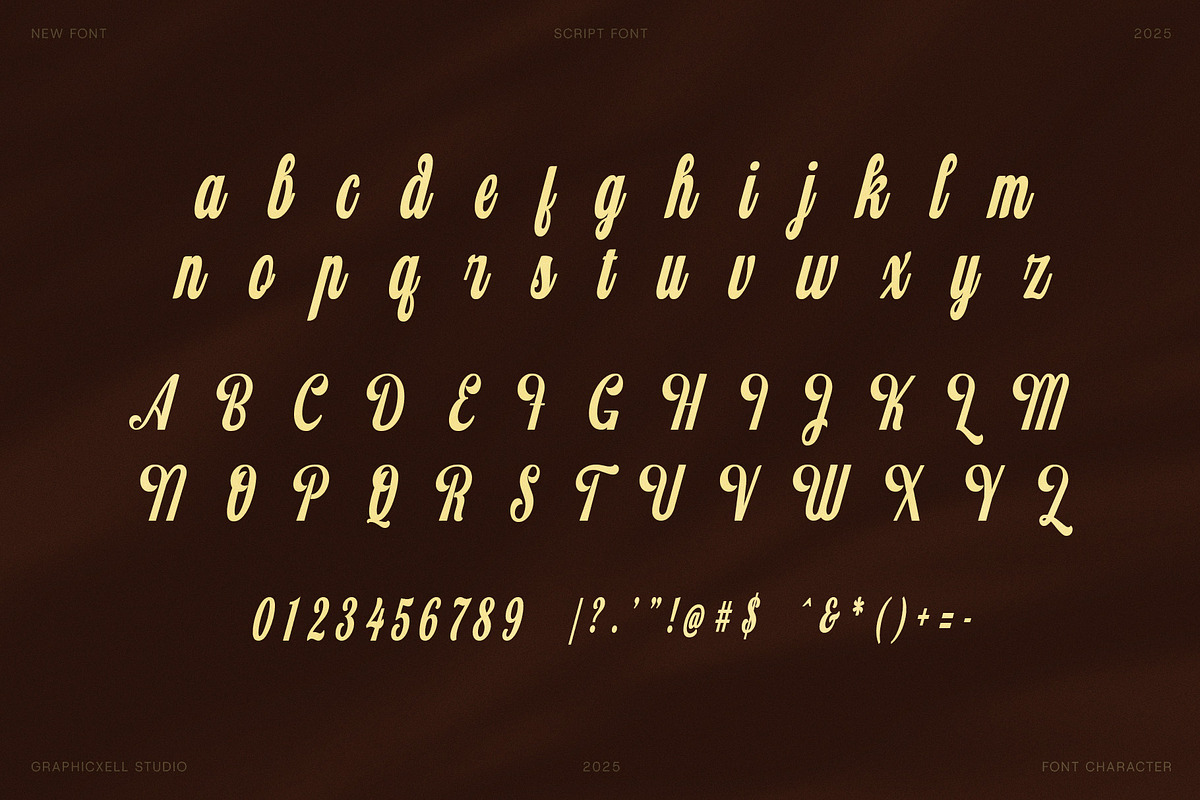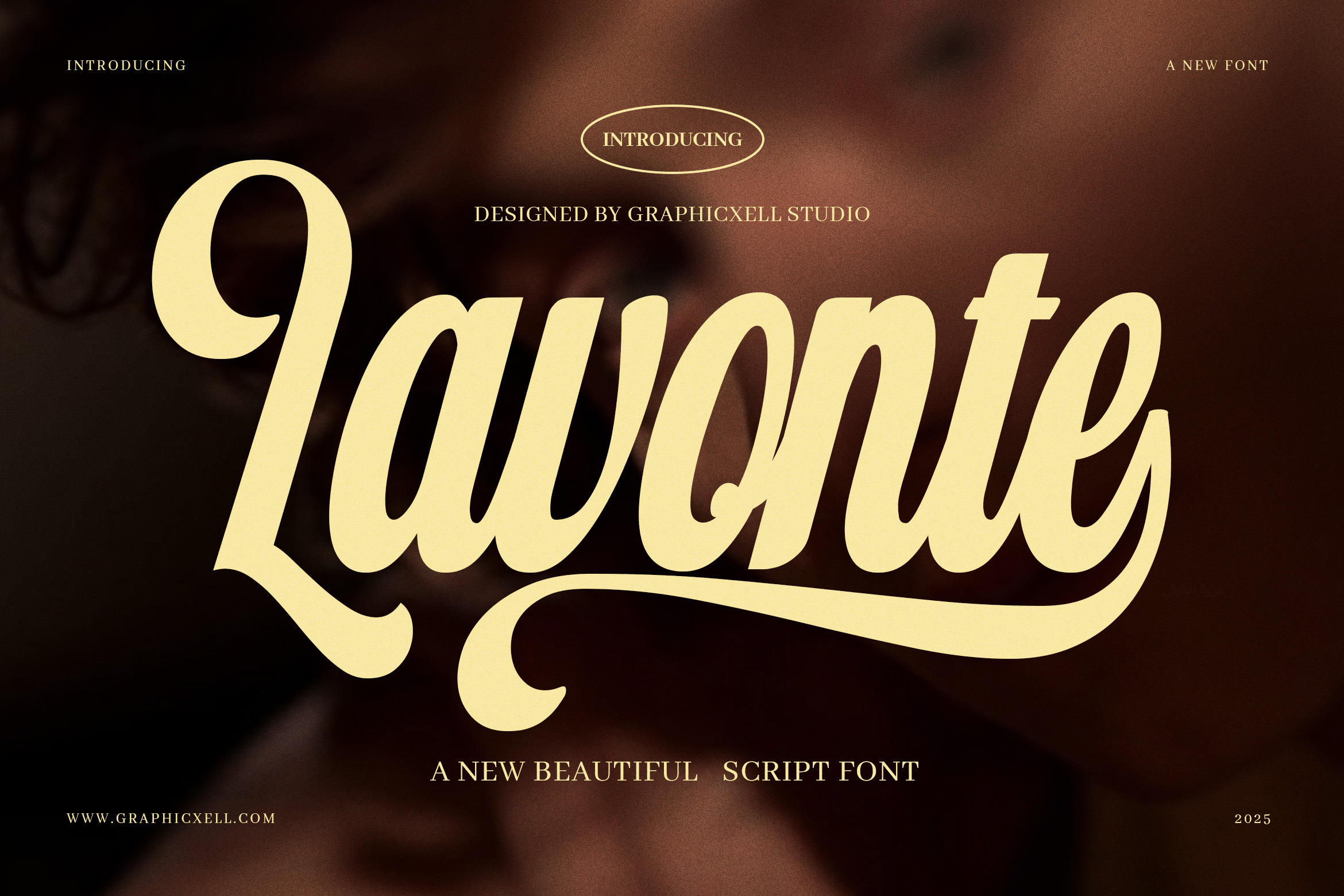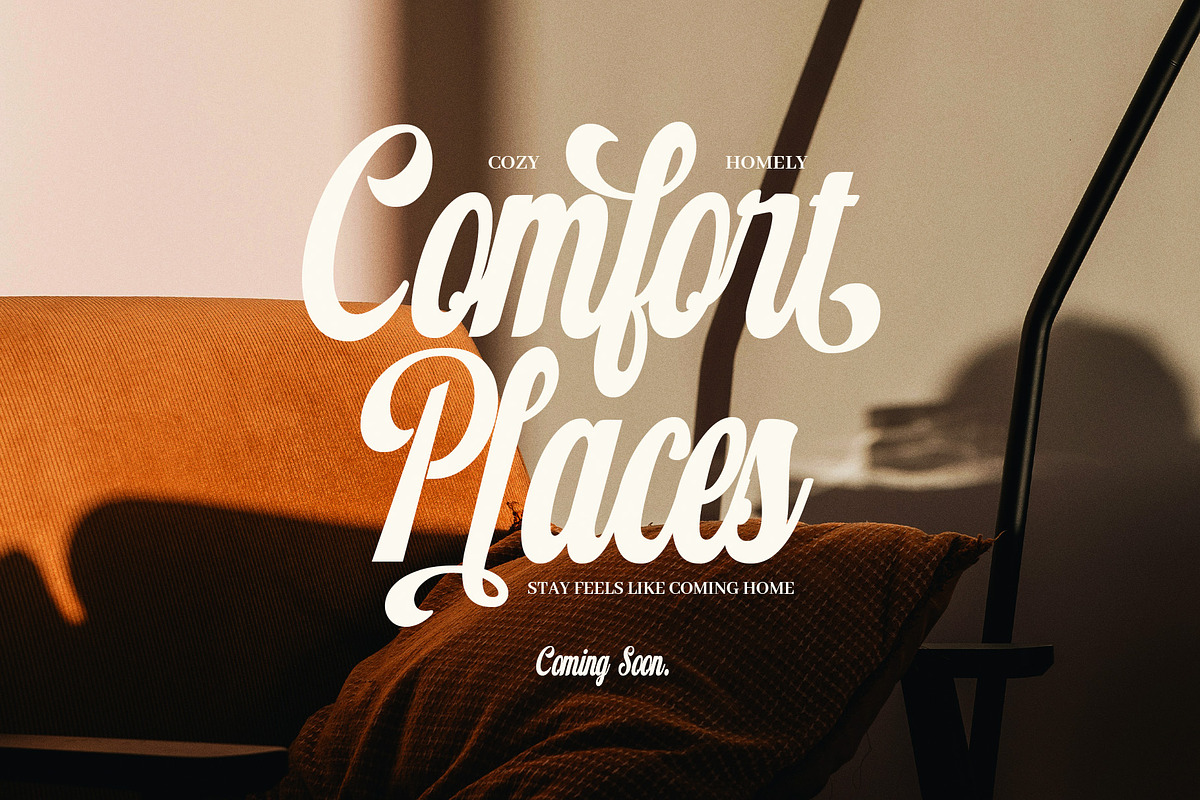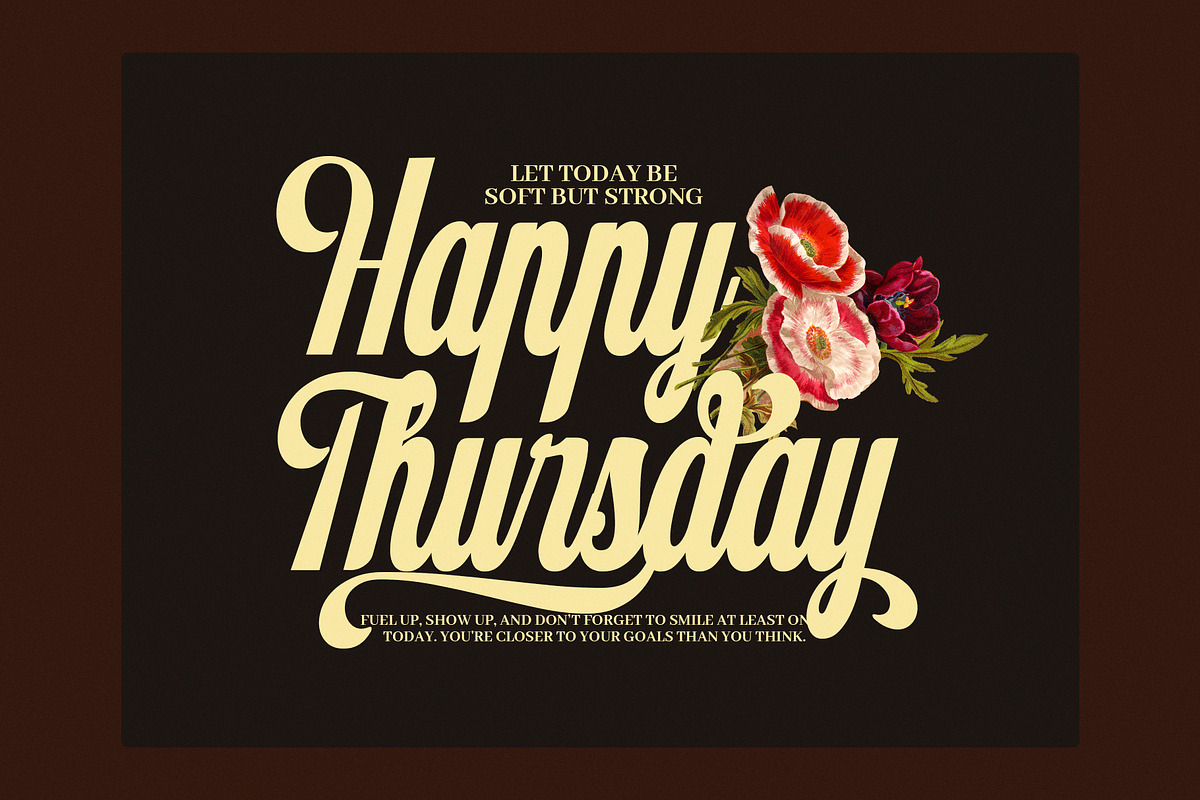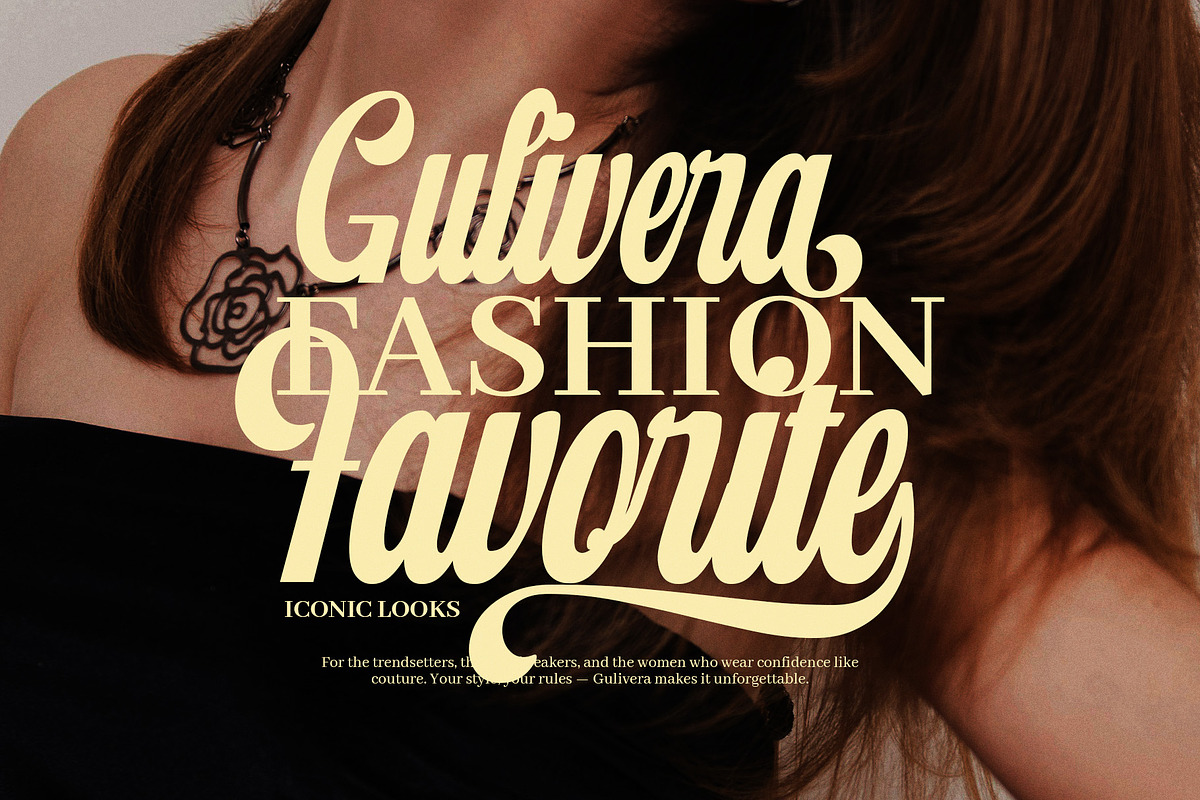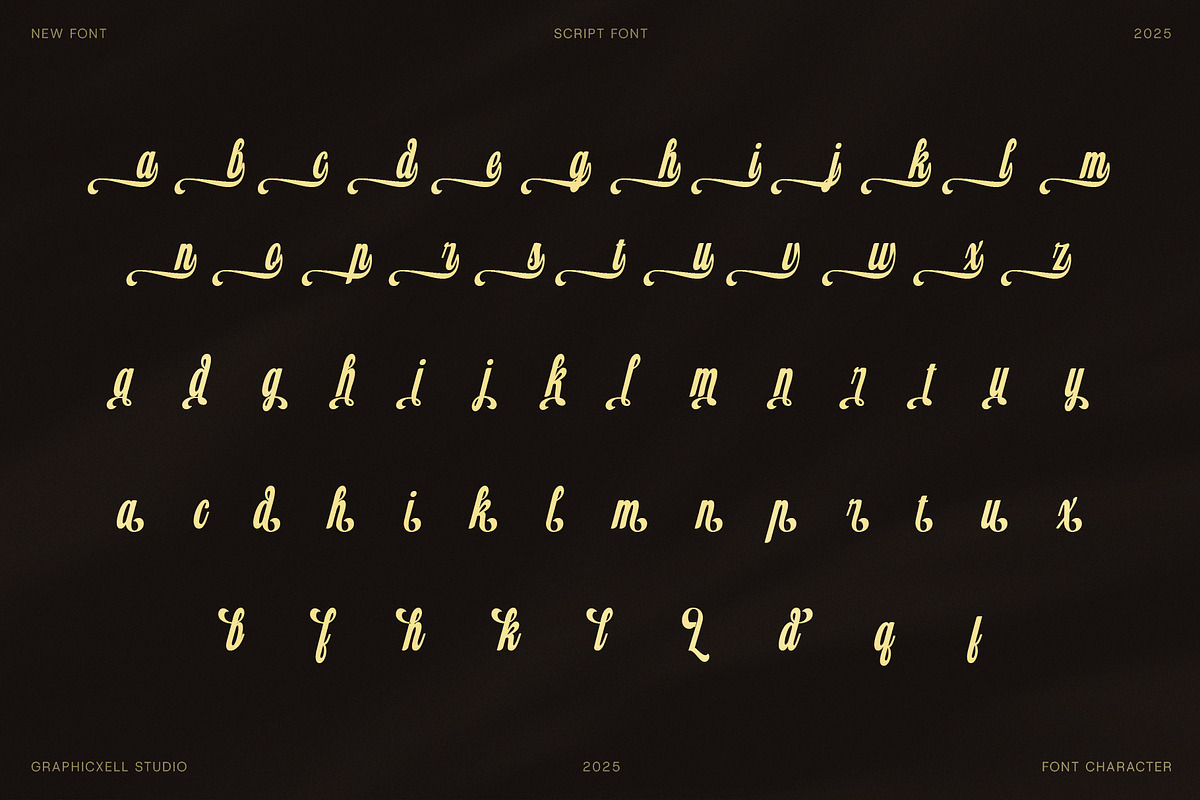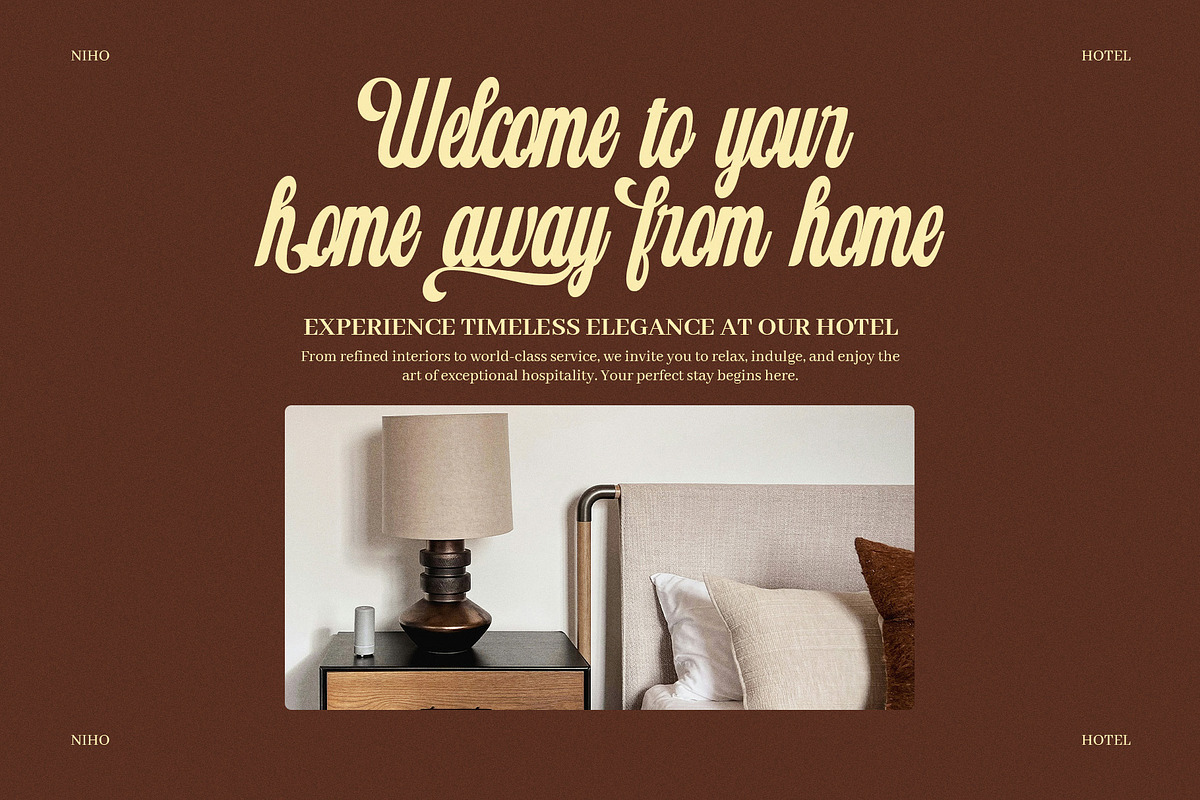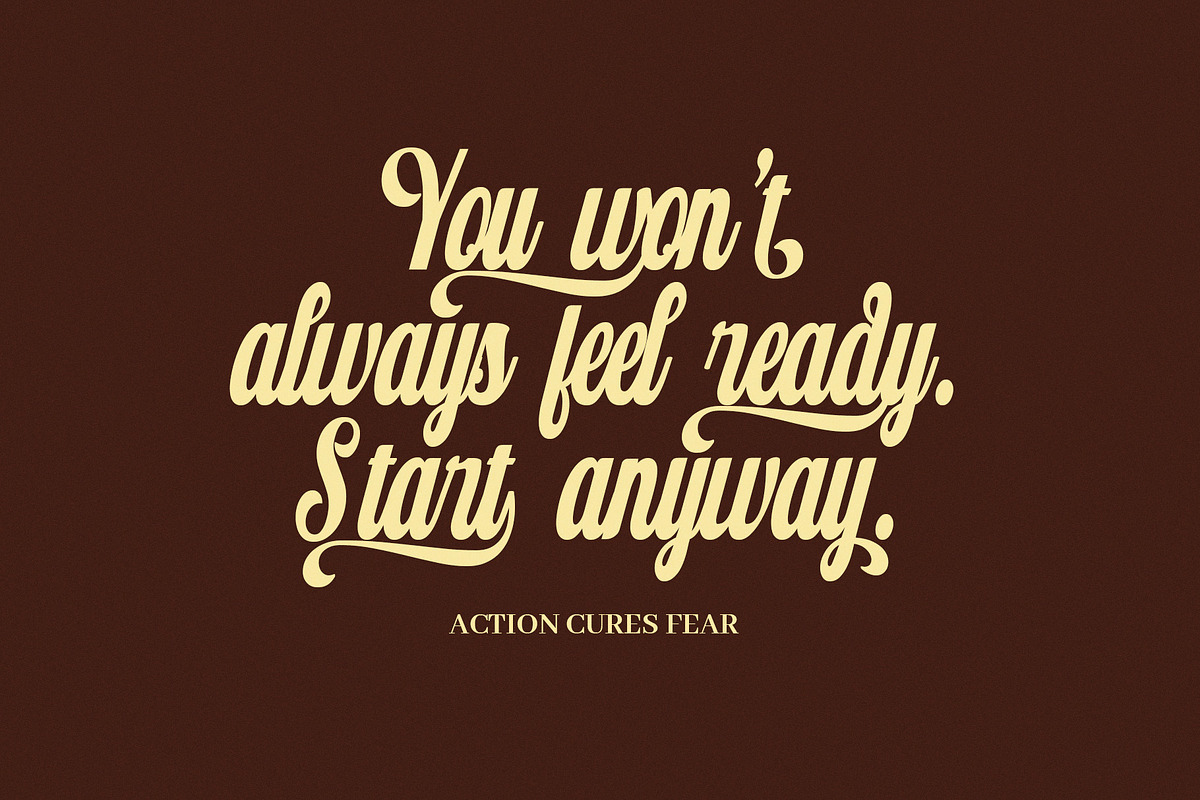
Lavonte Vintage Script Font
Lavonte Vintage Script Font brings a warm, smooth, and stylish feel to every design. It has flowing curves and bold strokes that make each word look expressive and memorable. The letter shapes feel soft, yet they still hold a strong visual presence. Because of that balance, Lavonte works well for logos, quotes, product labels, and lifestyle branding.
The script design follows natural handwriting movement. Each letter connects in a graceful rhythm, so your text appears lively and inviting. Moreover, the long swashes and alternates allow you to design with personality. You can choose gentle swirls for a romantic look, or use bold strokes for a confident, modern mood. In addition, Lavonte keeps good readability in both large titles and medium-sized text.
This font was designed for creators who want elegance that also feels warm and human. It works beautifully for boutique brands, fashion labels, handmade products, cafés, florists, beauty salons, wedding studios, and interior or lifestyle projects. When paired with a clean serif or sans serif, it creates a balanced and refined visual identity.
Because Lavonte has multiple stylistic features, it invites experimentation. You can try mixing uppercase and lowercase alternates to create distinct and iconic word shapes. Also, the smooth baseline helps layouts feel cohesive and well-crafted. Designers will appreciate how easily Lavonte adapts to both soft and bold concepts.
Use Lavonte in:
Branding and logo marks
Packaging designs
Greeting cards and invitations
Social media quotes and captions
Editorial titles and posters
Storefront signage and menus
In short, Lavonte adds emotion and character to text. It carries nostalgia, yet it still feels current. Most importantly, it helps your message stand out with charm, warmth, and style.